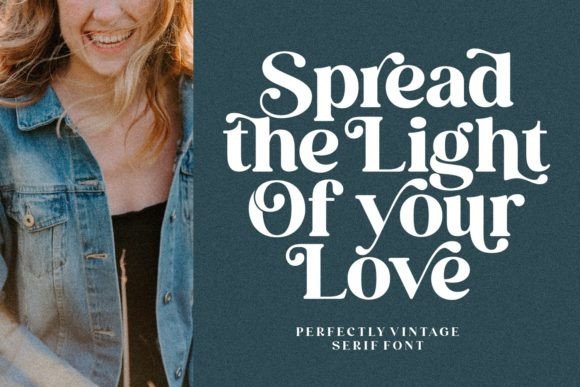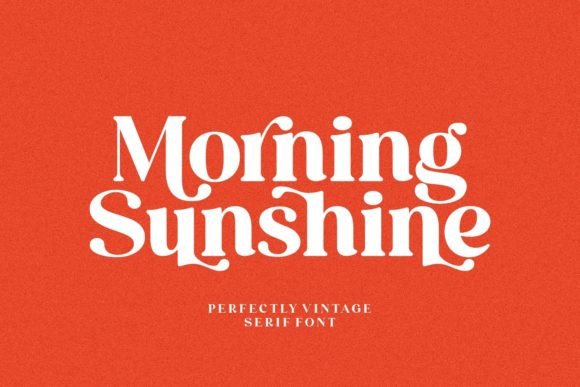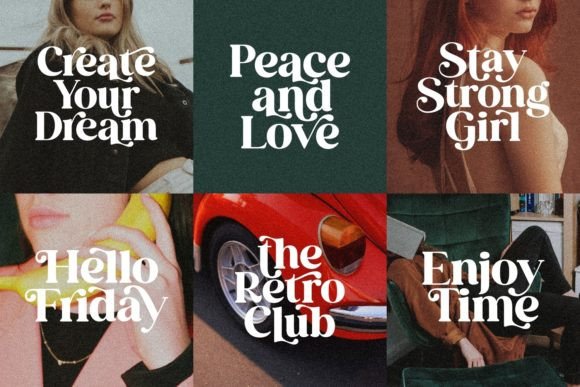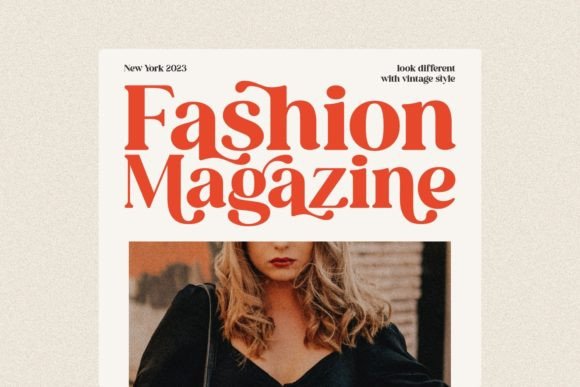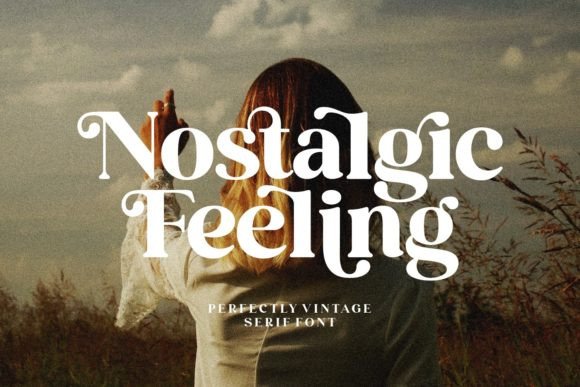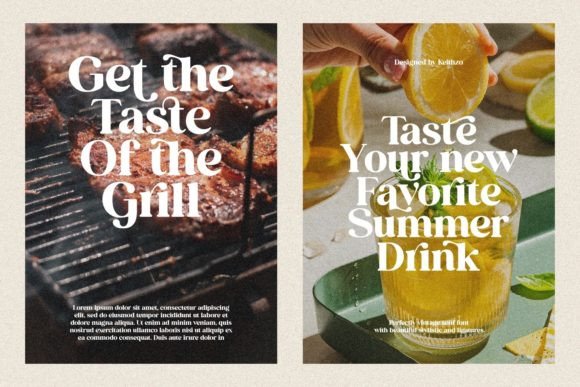
Introduction to Perfectly Vintages Font Font
Fonts play a crucial role in design, and the Perfectly Vintages Font font is a typeface that brings both character and versatility to any project. Whether you’re working on a branding project, a website, or a print design, the Perfectly Vintages Font font offers a unique style that can elevate your work.
Introducing the vintage-inspired and exquisite Perfectly Vintages serif font.
Its classic design features sturdy, bold serifs and distinctive letterforms that recall the golden age of typography Perfect for retro branding, vintage packaging, and other nostalgic designs, Perfectly Vintages adds a touch of old-world charm to any project.
Key Features of Perfectly Vintages Font Font
Why Choose Perfectly Vintages Font Font?
The Perfectly Vintages Font font is more than just a typeface – it’s a design tool that helps you communicate your message with style and clarity. Its unique character set and versatile design make it suitable for a wide range of applications, from elegant invitations to bold headlines.
With its carefully crafted letterforms and balanced proportions, the Perfectly Vintages Font font ensures readability and visual appeal across all mediums.
What makes Perfectly Vintages Font font special?
The Perfectly Vintages Font font stands out with its unique design, exceptional readability, and versatility across various design applications.